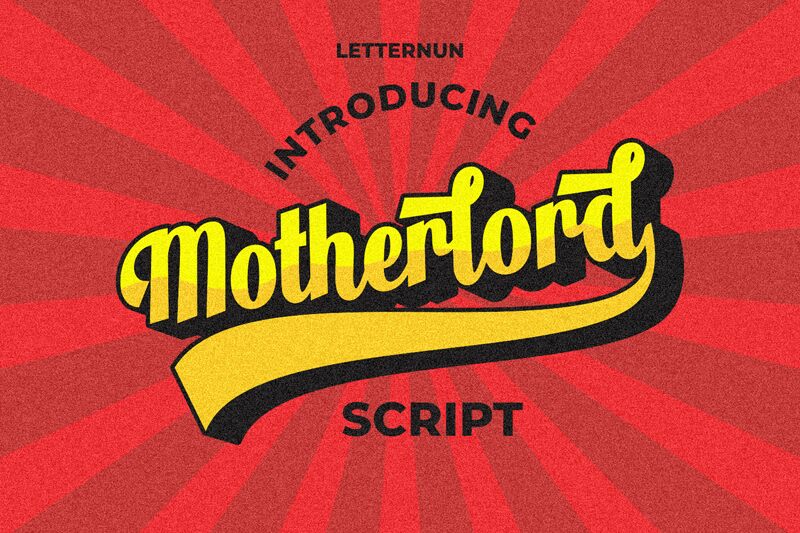
Motherlord
Motherlord is a bold and beautiful retro script font, designed by Letternun. This unique font has an old-school charm that will give any project a vintage look. Perfect for creating eye-catching logos, posters, headlines and titles with a touch of nostalgia, Motherlord is also great for making stylish invitations and greeting cards. With its natural character flow, this font is sure to bring life to any design!